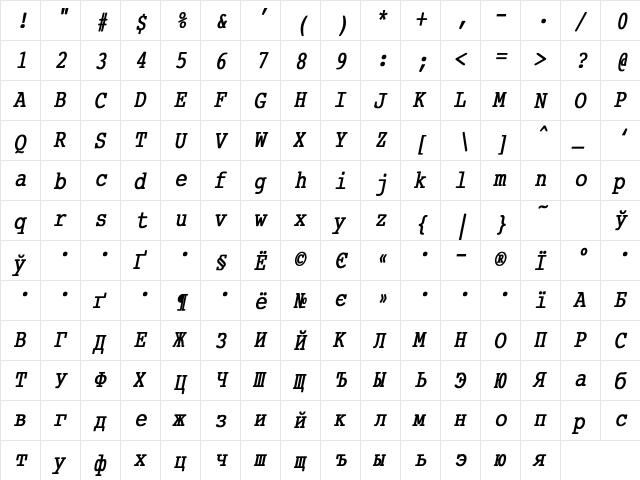
Design Context for Courier Condensed Typeface
Courier Condensed brings the precise, column-aligned rhythm of monospaced typography to designs that value technical clarity and systematic order. Its italic angle brings a sense of urgency and motion to the letterforms. The heavy weight commands attention and anchors typographic hierarchies.
Pro Tip: Use Courier Condensed with slightly increased line-height for extended reading — fixed-width spacing can feel dense in longer passages without extra breathing room.